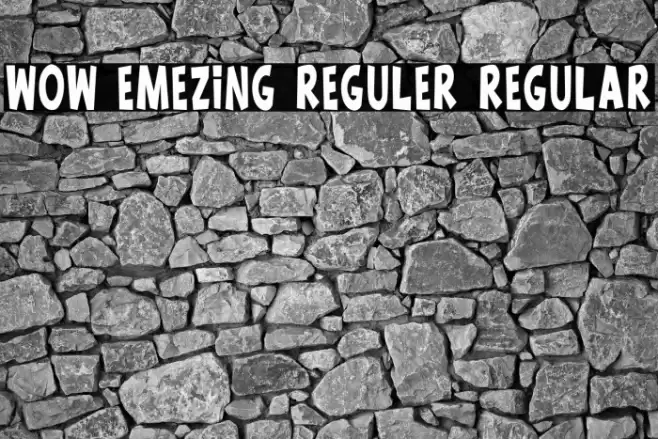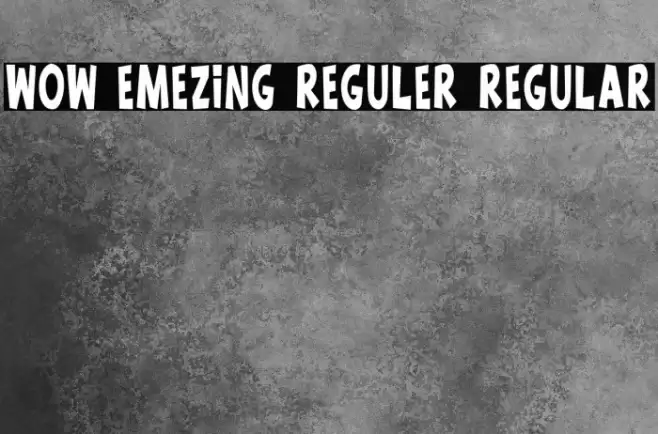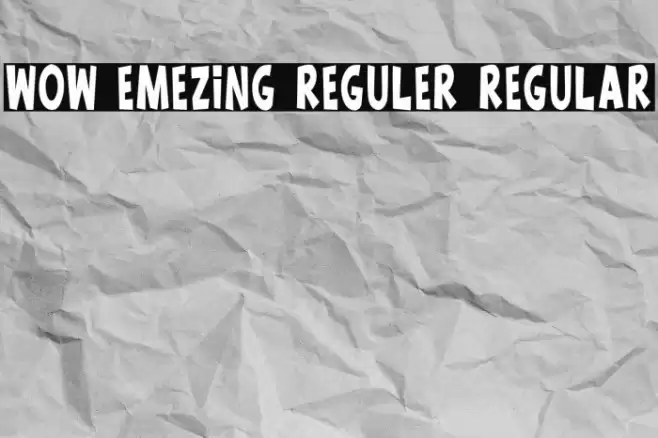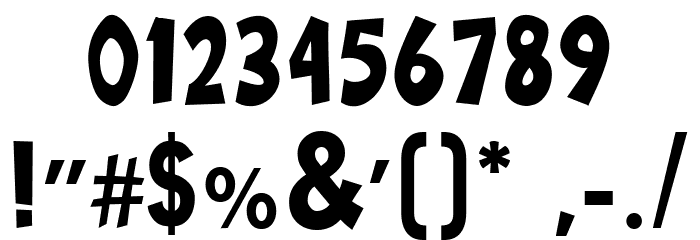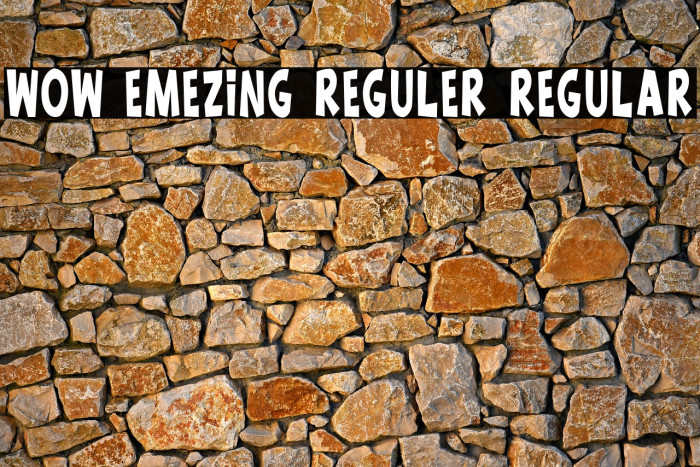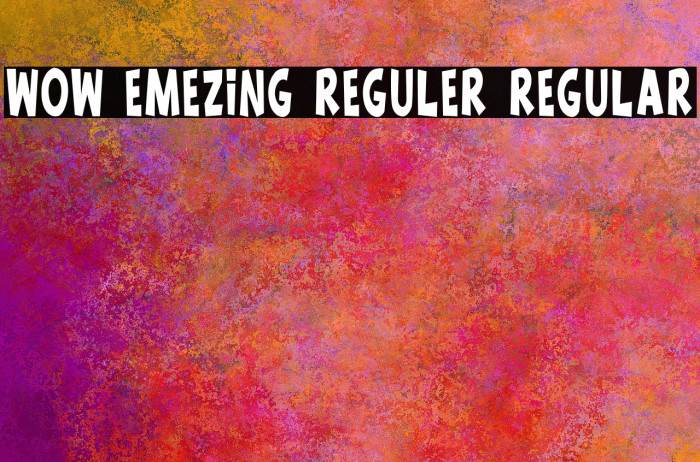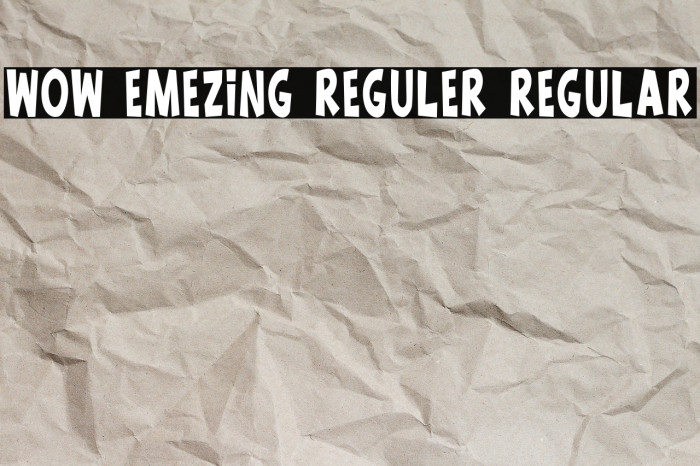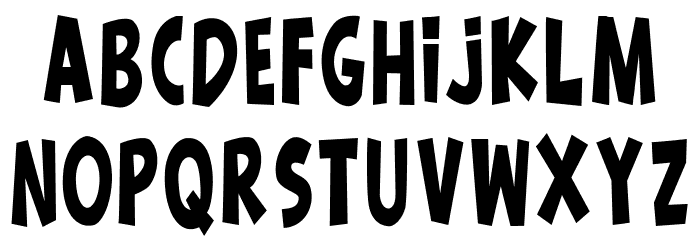
wow emezing reguler Regular Font
wow emezing reguler Regular Description
This font features a bold and playful design with a slightly irregular and hand-drawn appearance. The characters are thick and have a whimsical, cartoon-like quality, making them stand out with a strong visual impact. The uppercase and lowercase letters maintain a consistent style, with rounded edges and a slightly uneven baseline, adding to the casual and fun aesthetic. The numbers and special characters follow the same design principles, ensuring a cohesive look across all glyphs. This font is ideal for projects that require a lively and informal touch.
A bold, playful font with a hand-drawn, cartoon-like style from Cartoon fonts.
- Proposed Projects: Great for children's books, comic strips, playful branding, and posters.
- Overall Style: Playful, Casual
- Use Case: Headlines, Posters, Branding